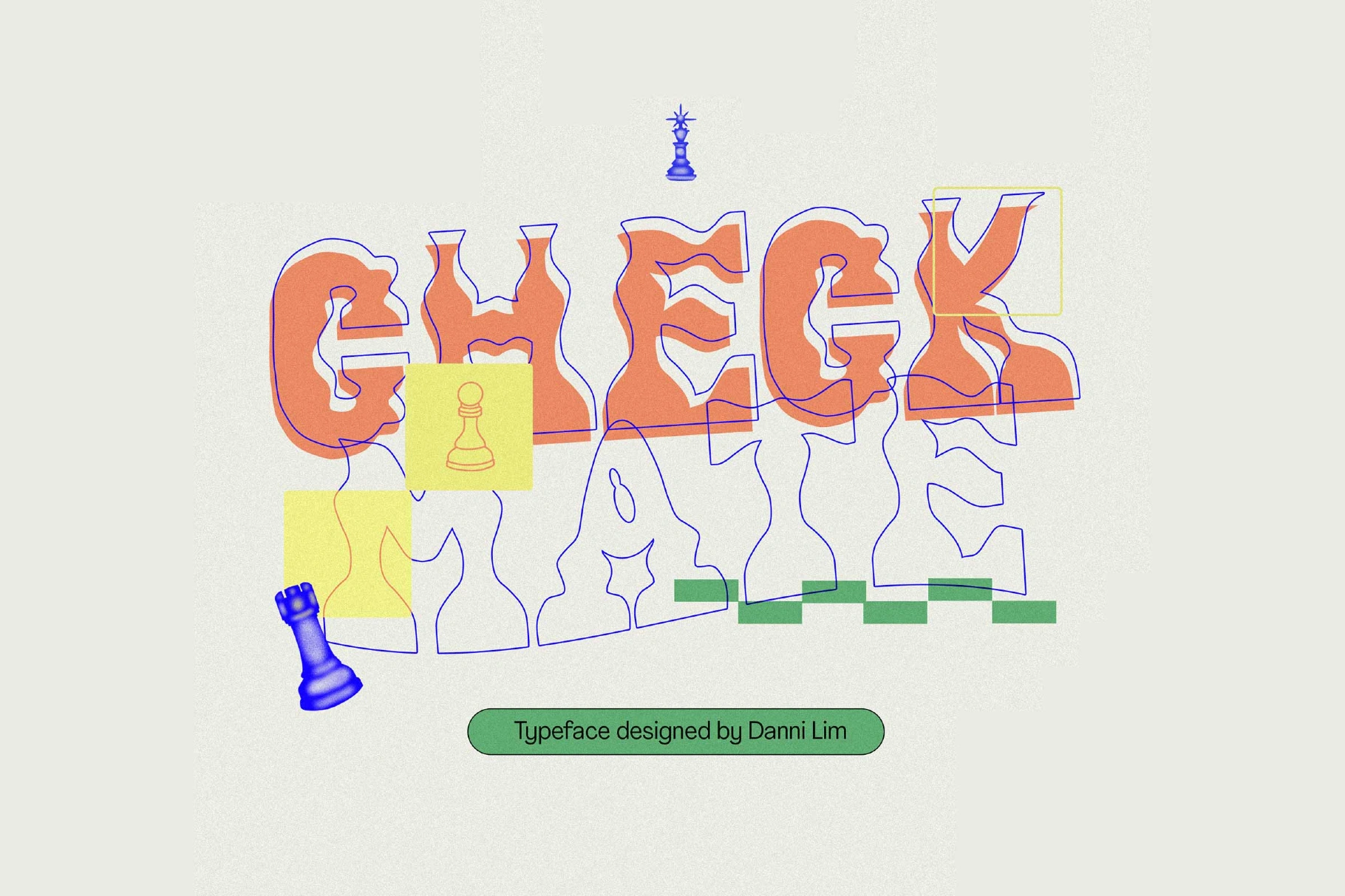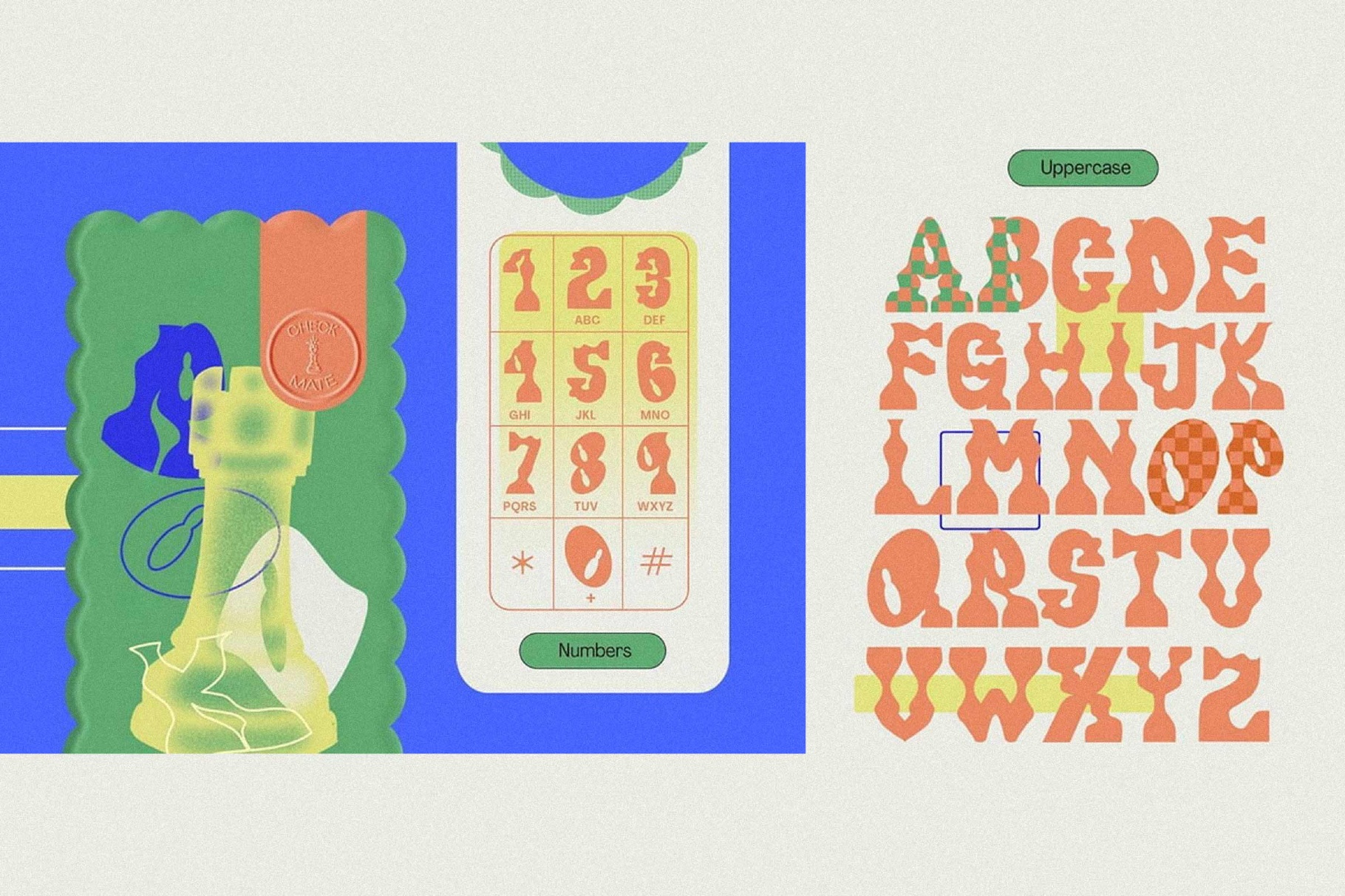
Checkmate - Groovy Wavy Font
Checkmate Typeface
Checkmate turns bold geometric lettering into a sharp visual game, built around blocky shapes, strategic rhythm, and measured spacing. Its graphic character recalls Bauhaus poster systems, optical art experiments, and café signage with a clever competitive streak.
It plays well as groovy wavy font inside board game branding, chess club identities, puzzle books, strategy guides, tournament posters, editorial headlines, café identities, packaging, menu design, merch prints, and social media visuals.